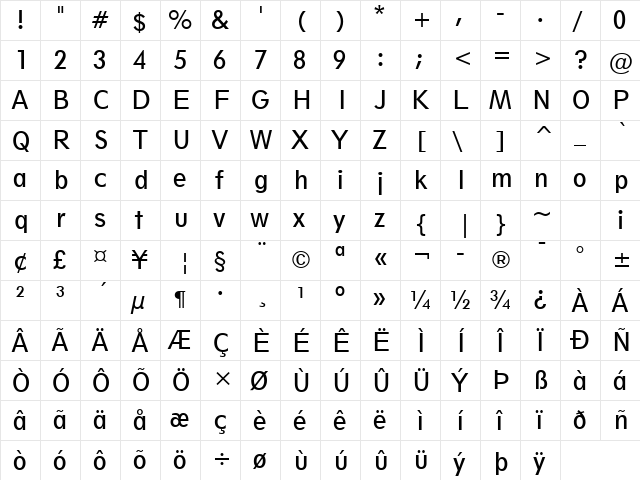
Geometr212 BkCn BT Book
Design Context for Geometr212 BkCn BT Typeface
Geometr212 BkCn BT is a composed and adaptable typeface that performs quietly and consistently across a wide range of design contexts.